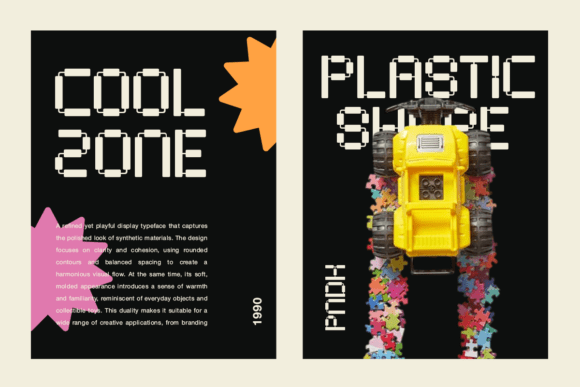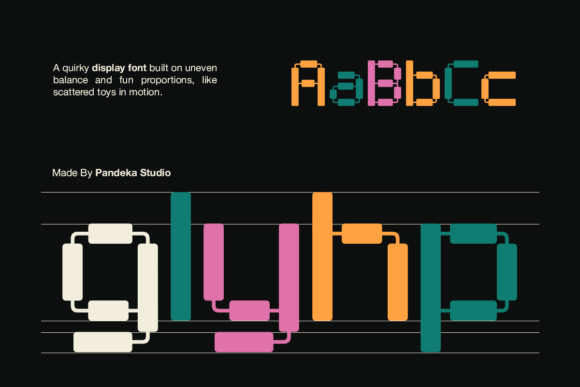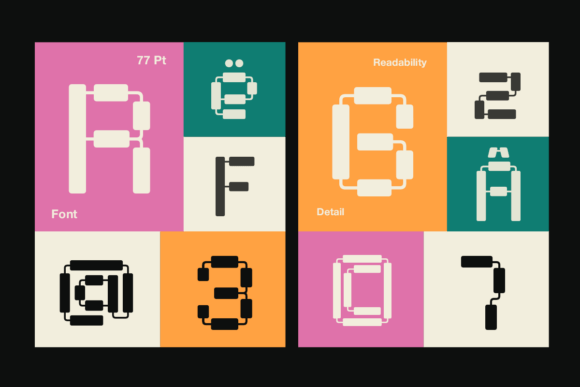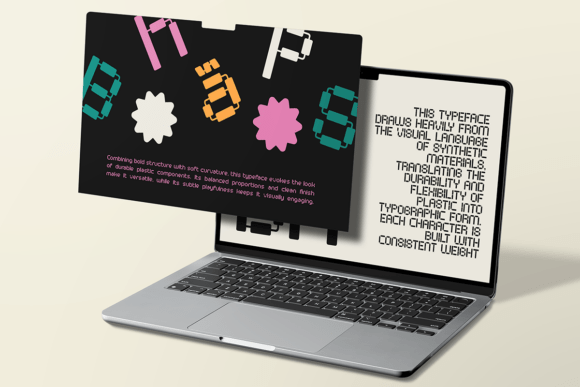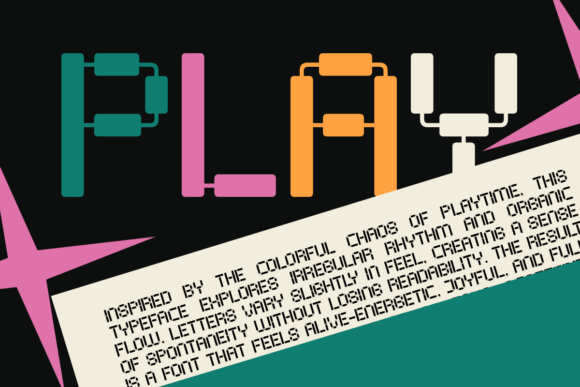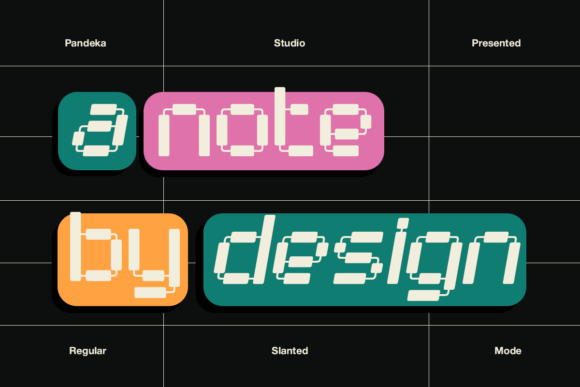
Introduction to Play Sticz Font
Remember the thrill of assembling your favorite childhood toys, the sense of pride and accomplishment as you brought the pieces together to create something entirely new? For designers, that same excitement can be found in the process of discovering and experimenting with new fonts. One such font that embodies this spirit is the Play Sticz Font, a modern display font that’s as playful as it is innovative.
With its unique modular design and quirky construction, the Play Sticz Font offers a fresh perspective on typography, making it an invaluable resource for designers looking to add a touch of creativity to their projects. Whether you’re working on a toy branding campaign or a fun logo design, this font is sure to bring a smile to your face and a new level of visual interest to your work.
Key Features of Play Sticz Font
- High-quality font with a unique, playful design suitable for creative projects.
- Includes a transparent background, allowing for seamless integration with various backgrounds and designs.
- Features a large character set, including uppercase and lowercase letters, numbers, and punctuation marks.
- Designed at 300 DPI resolution, ensuring crisp and clear text display in print and digital applications.
- Perfect for use in logos, branding, and other creative projects where a playful, eye-catching font is desired.
Honest Review: Play Sticz Font
As a designer, I’m always on the lookout for high-quality fonts to add some personality to my creative projects. Recently, I stumbled upon the Play Sticz Font, and I’m excited to share my honest review with you.
Here are some things that work well with the Play Sticz Font:
- Its unique, playful design is perfect for creative projects like logos, posters, and social media graphics.
- The font has a transparent background, making it easy to use with any background image or color.
- The font is highly customizable, allowing you to adjust the size, color, and style to fit your project’s needs.
That being said, there are a few limitations to consider:
- The font may not be suitable for formal or professional projects, as it has a more casual, playful feel.
Overall, I’m really impressed with the Play Sticz Font. It’s a great addition to any designer’s toolkit, and I’m excited to use it in my future projects.